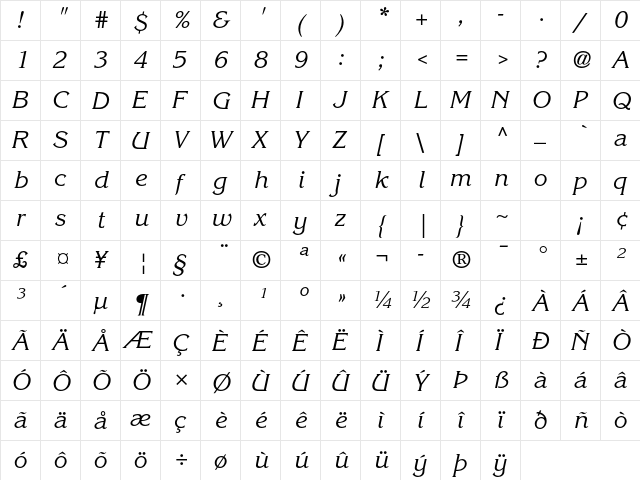
ITC Korinna Std Kursiv Font Preview
ITC Korinna Std Kursiv
| Designer | Ed Benguiat, Vic Caruso |
Design Context for ITC Korinna Std Typeface
ITC Korinna Std offers clean, dependable letterforms without strong stylistic allegiance, making it a practical choice for designers who need flexibility. Its italic angle brings a sense of urgency and motion to the letterforms.
Pro Tip: Use ITC Korinna Std for emphasis, pull quotes, and subheadings where its slanted energy can add rhythm to the layout.